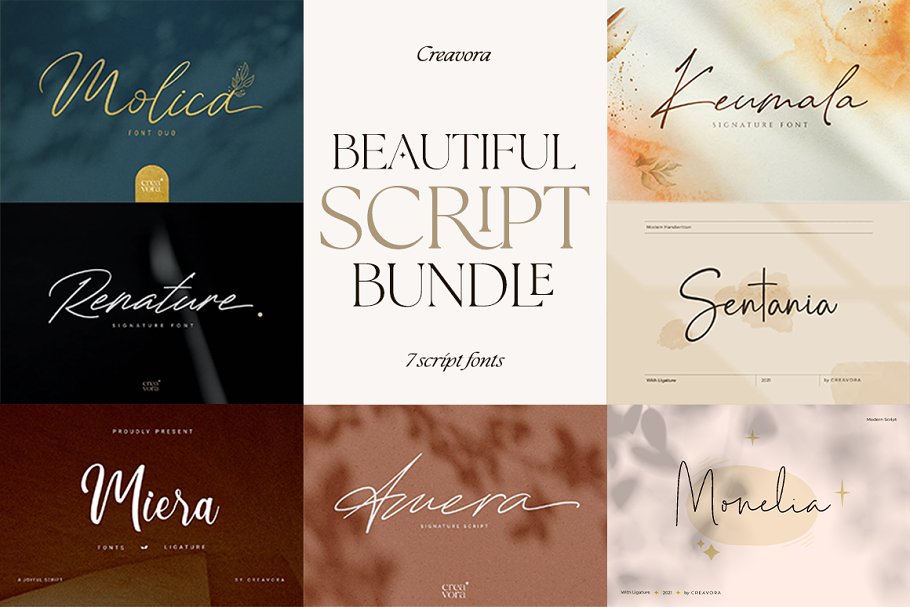
Are you on the hunt for a collection of fonts that will add a touch of artistry to your projects? Look no further than The Beautiful Script Font Bundle created by Creavora Creative. This bundle features 7 stunning script fonts that are perfect for a variety of uses, from wedding invitations to social media posts.
With this bundle, you'll have everything you need to elevate your designs and make them truly stand out. Each font has been carefully crafted to exude elegance and sophistication, making them ideal for creating vintage logos or adding a feminine touch to your branding.
Let's take a closer look at what this bundle includes:
1. Sentania - Handwriting Font: Perfect for adding a personal touch to your designs. [Link]
2. Keumala - Signature Script Font: A sophisticated font that will make your logos pop. [Link]
3. Renature - Signature Font: Elegant and timeless, this font is perfect for wedding invitations. [Link]
4. Amera - Signature Font (Coming Soon): Stay tuned for the release of this stunning font on Creativemarket.
5. Molica - Font Duo (Coming Soon): A versatile duo that will add depth to your designs.
6. Miera - Script Font (Coming Soon): Feminine and delicate, this font is perfect for branding.
7. Monelia - Handwriting Font (Coming Soon): Add a whimsical touch to your projects.